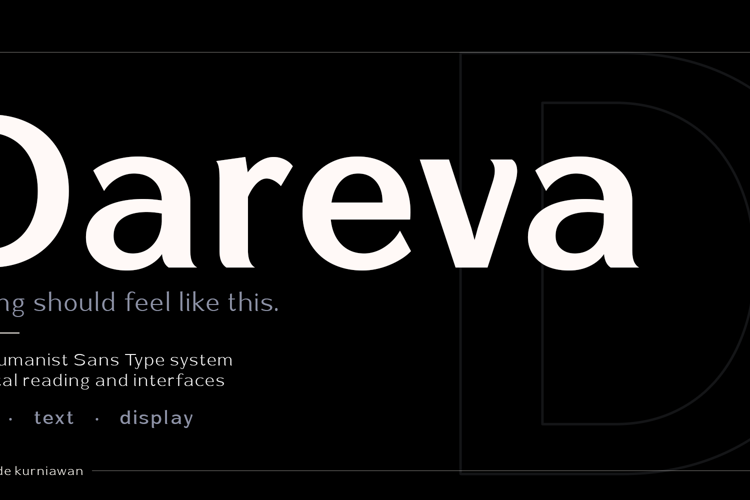
Dareva Font
Dareva is a modern neo-humanist sans serif type system designed for clarity, comfort, and readability across digital interfaces and editorial design.
Built with a true optical size approach, the complete family includes Micro, Text, and Display styles, each carefully optimized for its intended reading size. The result is a typeface that maintains consistent rhythm, balanced proportions, and excellent legibility from dense UI elements to expressive headlines.
The full commercial family features:
36 Font Styles
Micro, Text & Display Optical Sizes
Upright & Oblique Styles
Multilingual Language Support
OpenType Features
Ideal for:
UI/UX Design
Web Design
Mobile Apps
Product Design
Digital Publishing